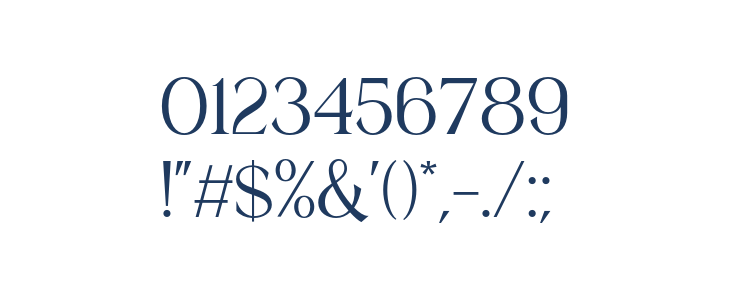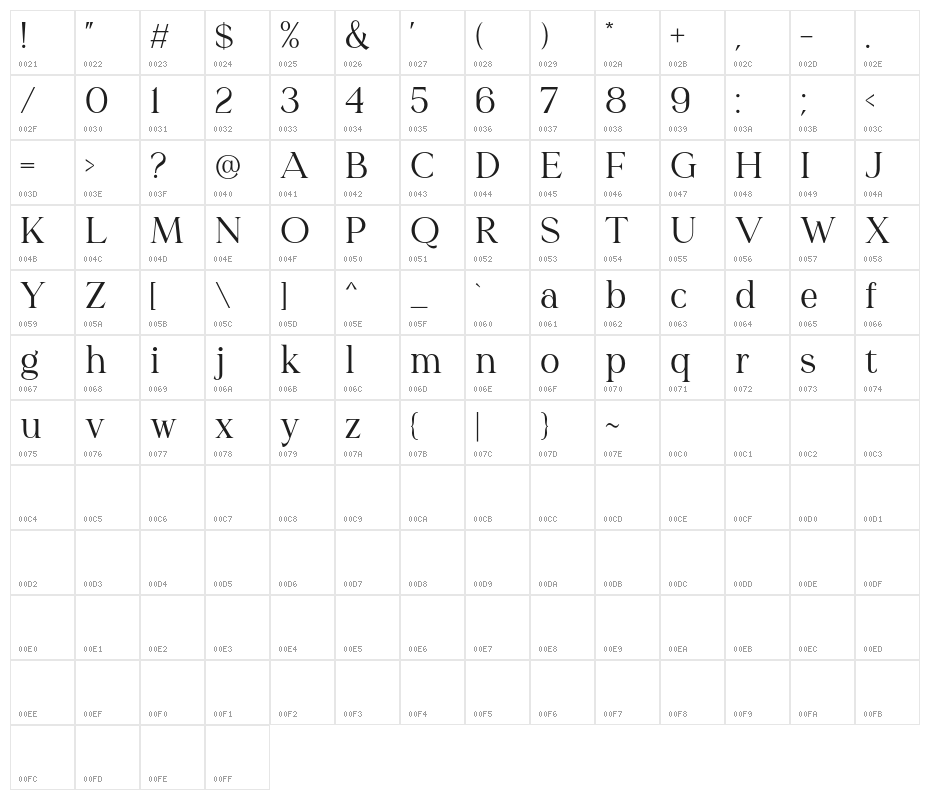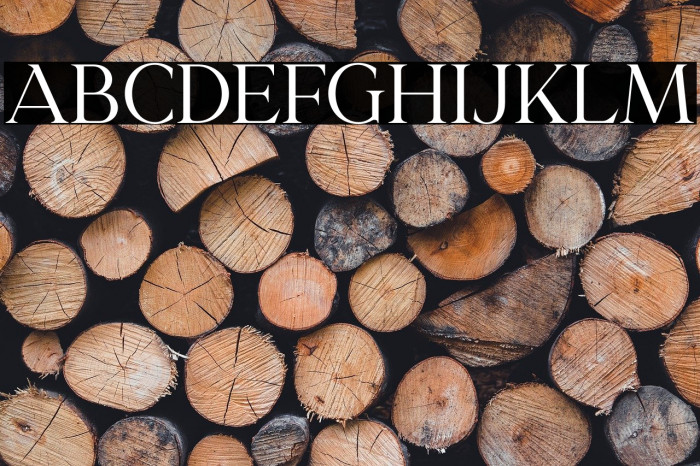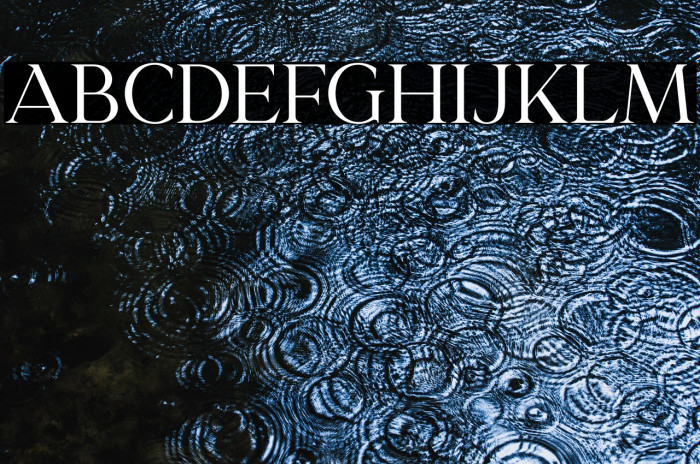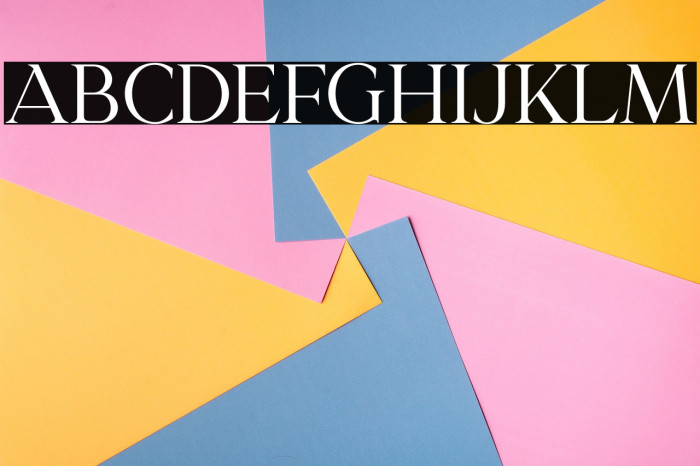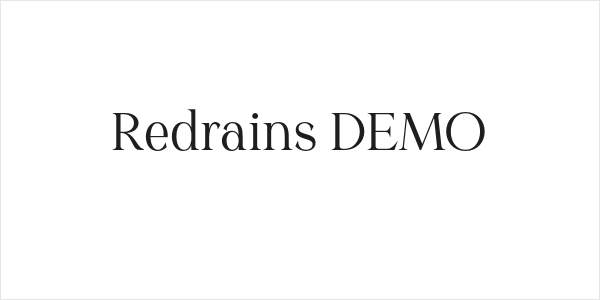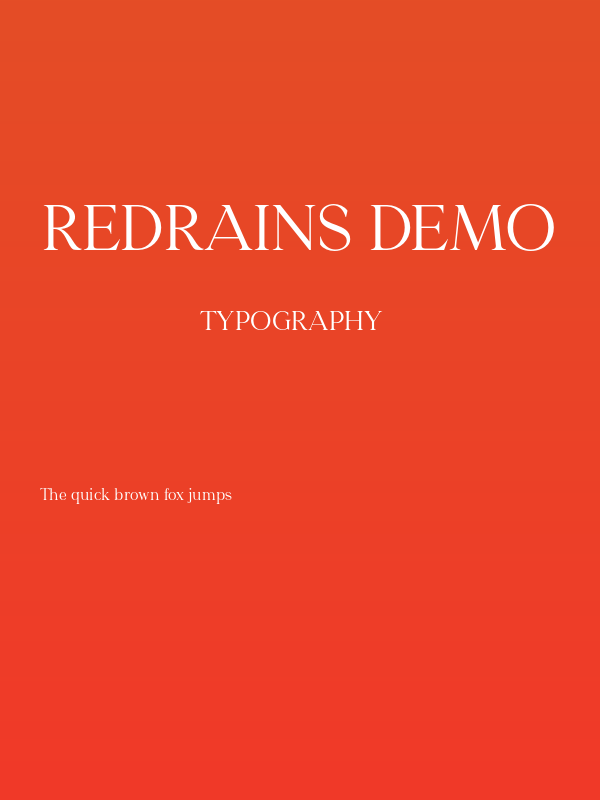
Redrains DEMO Font
Redrains DEMO Description
This font exudes a classic elegance with its high contrast between thick and thin strokes, typical of traditional serif typefaces. The serifs are sharp and pronounced, adding a touch of sophistication and readability. The uppercase letters are tall and commanding, while the lowercase letters maintain a balanced and harmonious appearance. The numerals are clear and distinct, ensuring legibility in various contexts. Special characters are well-defined, making this font versatile for different applications. Overall, it combines traditional aesthetics with modern functionality.